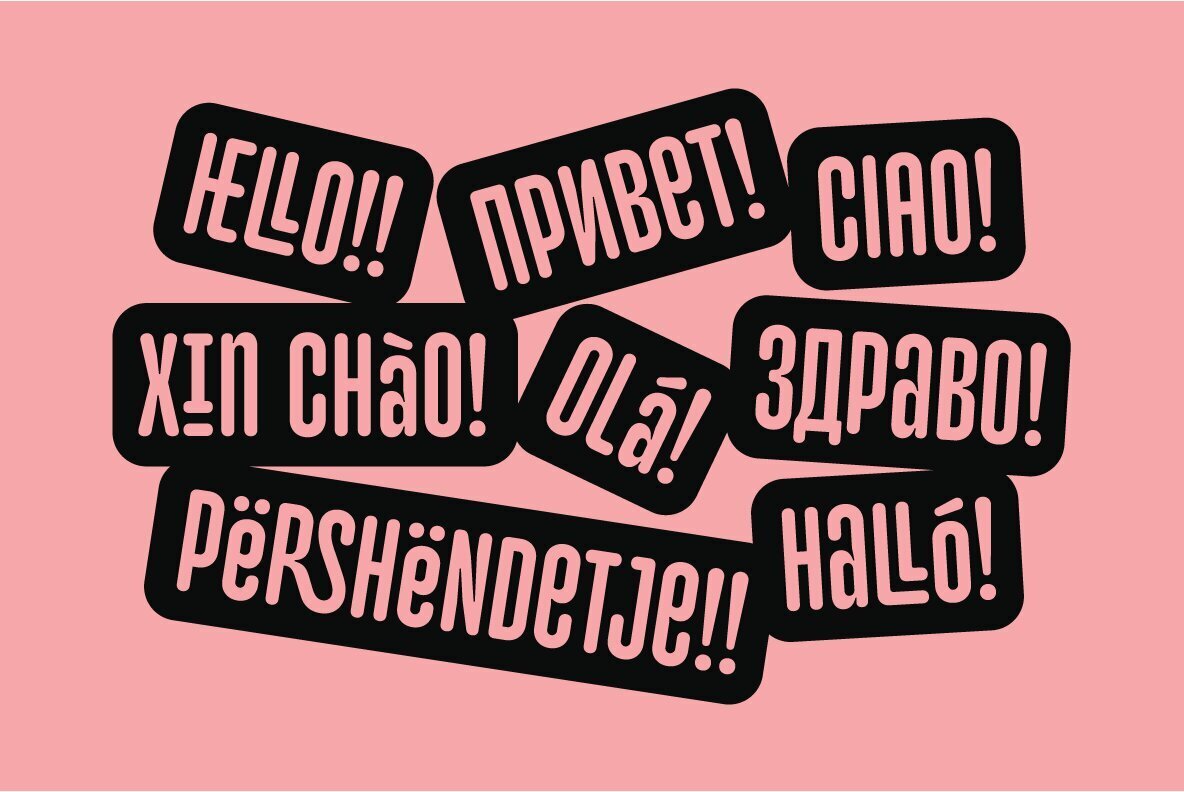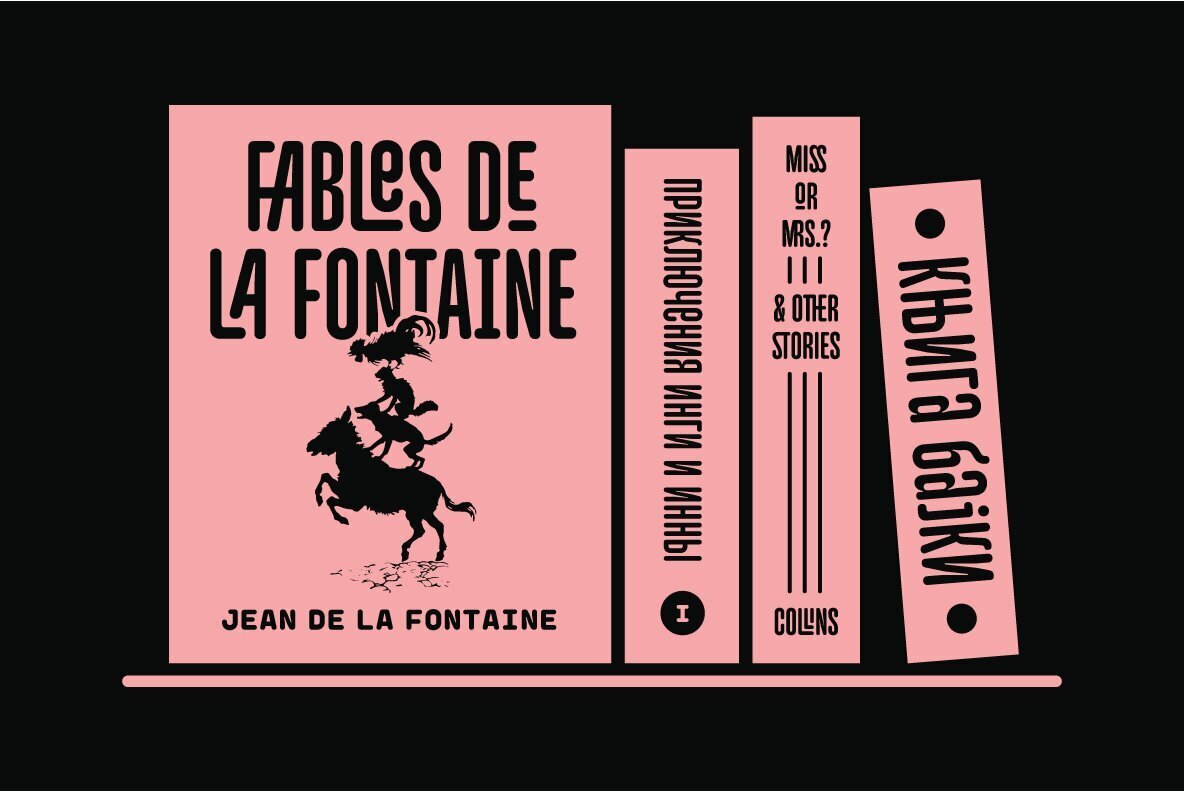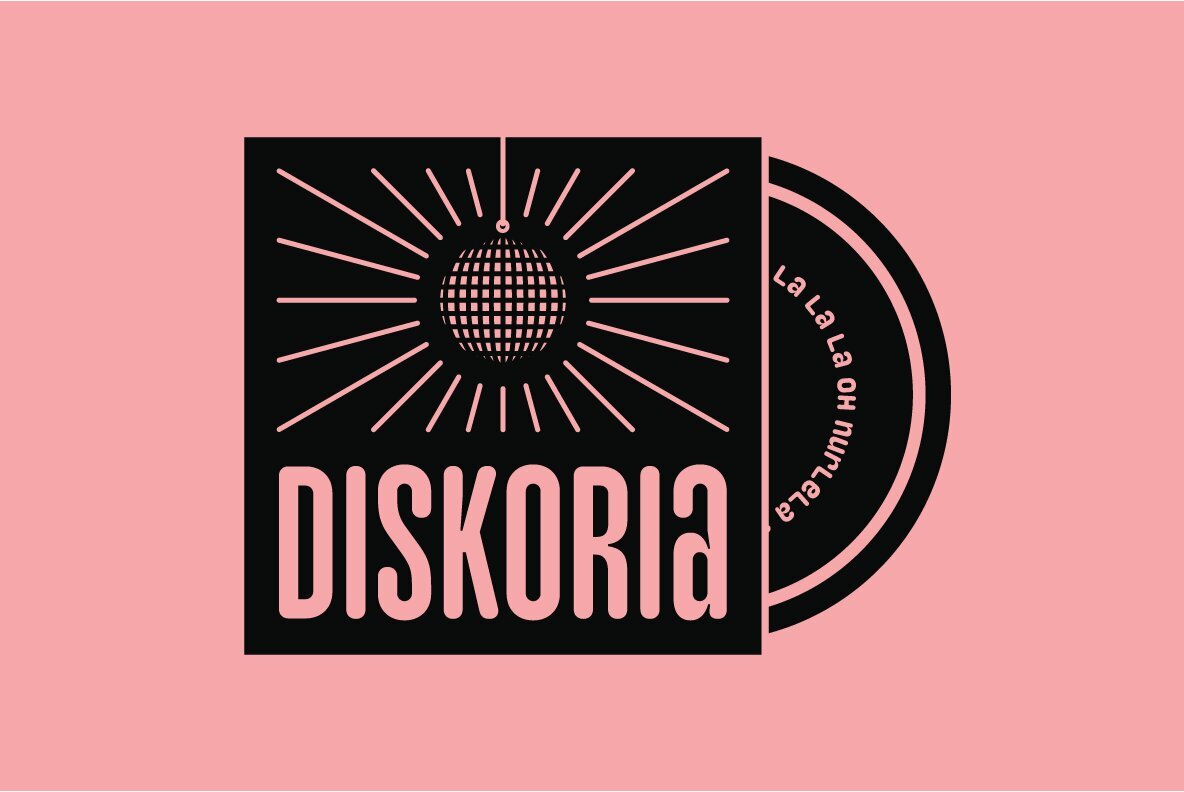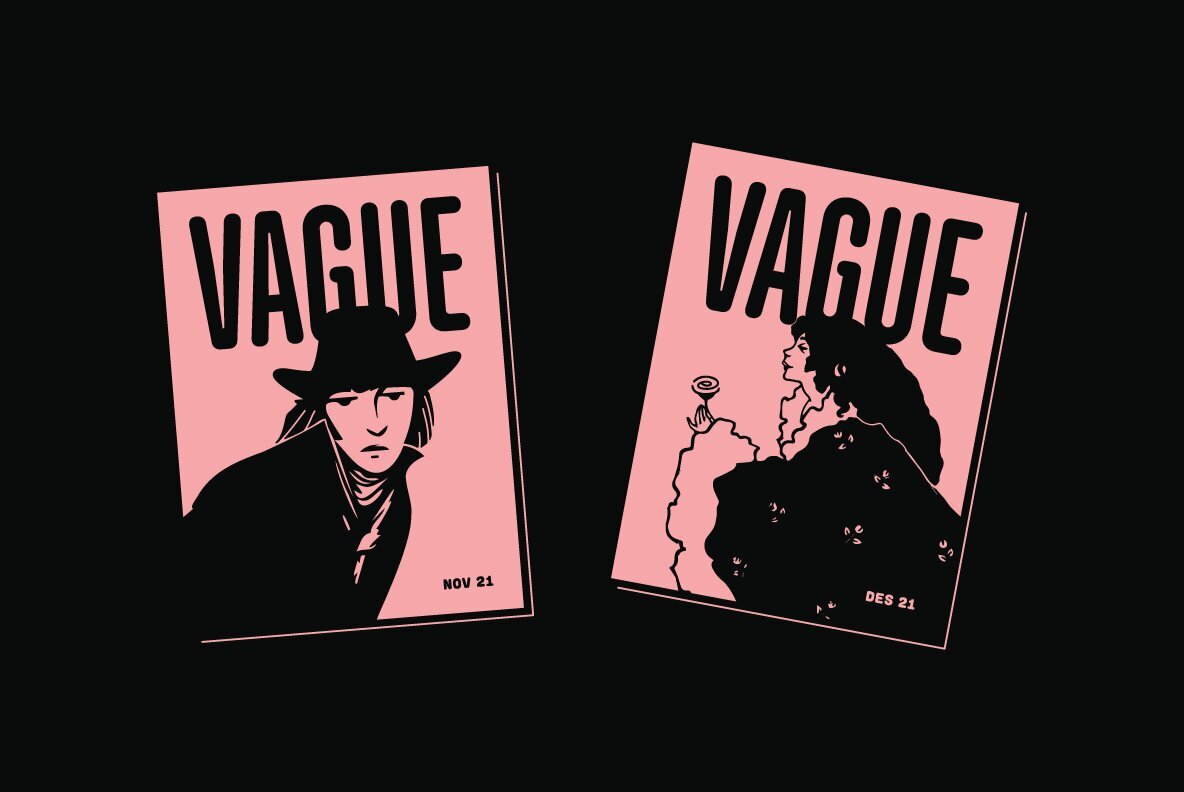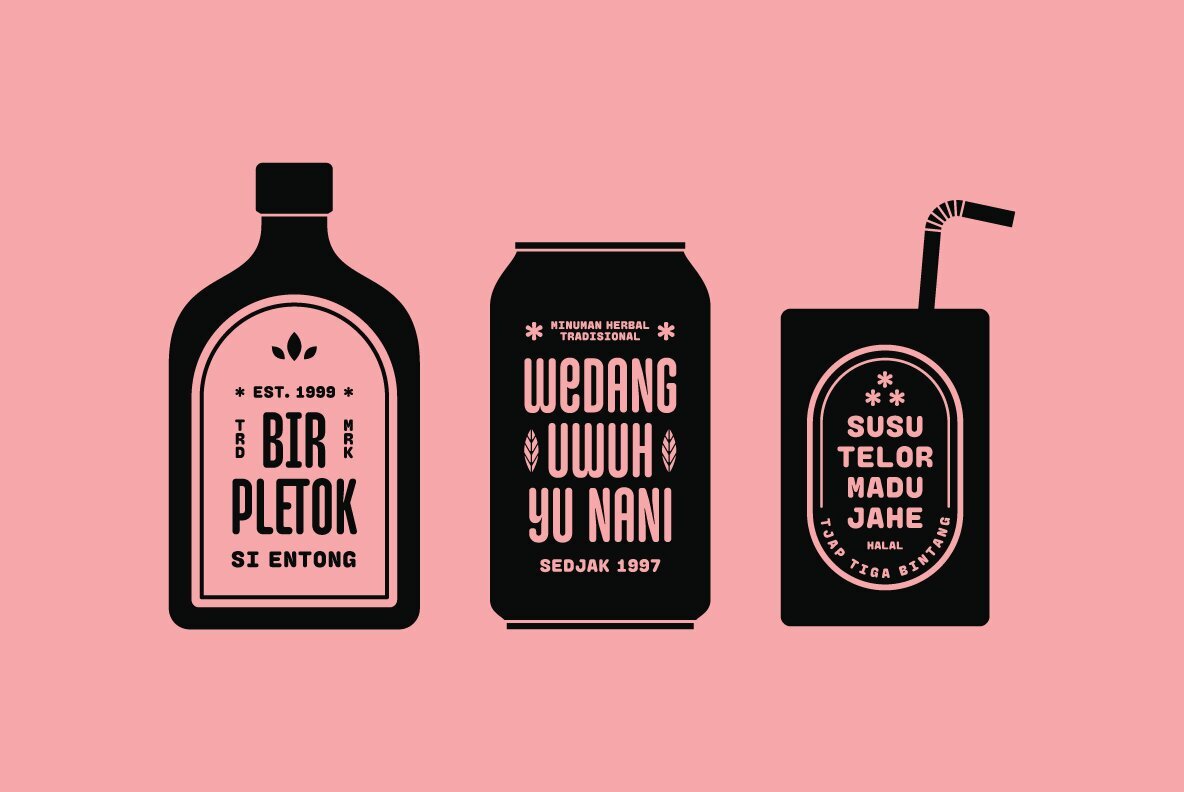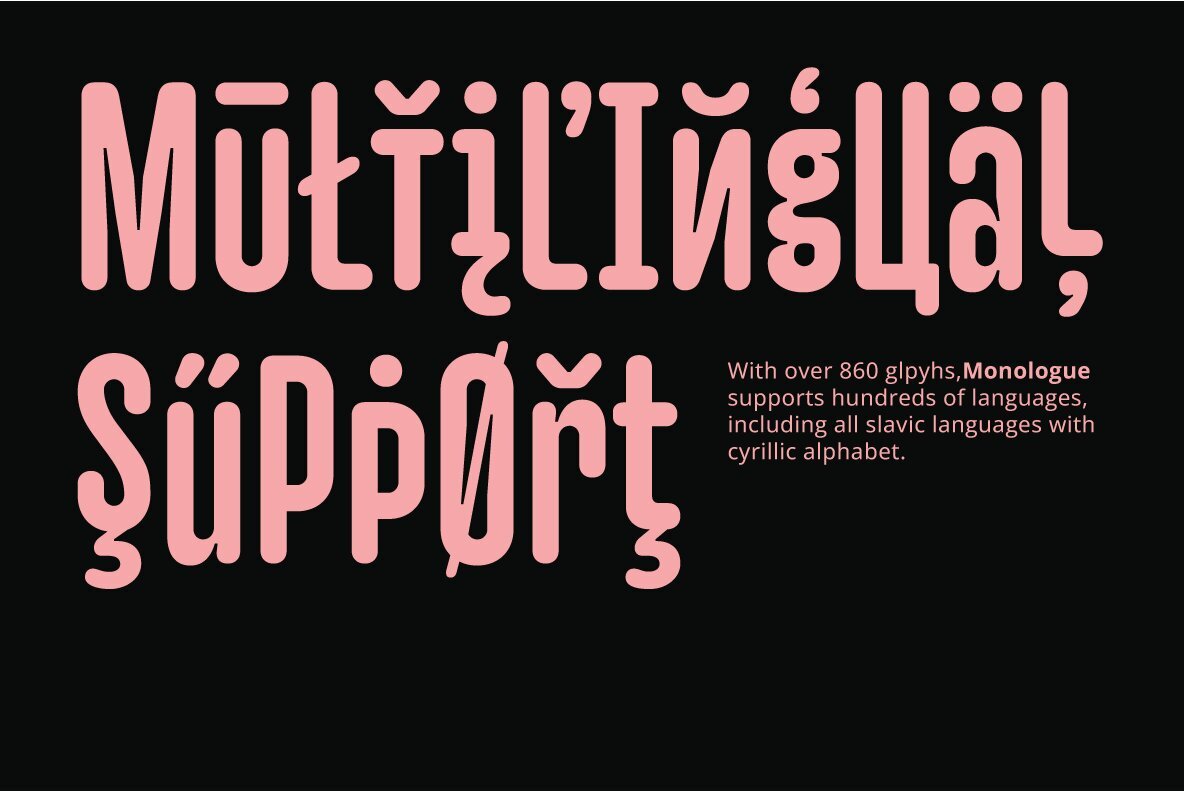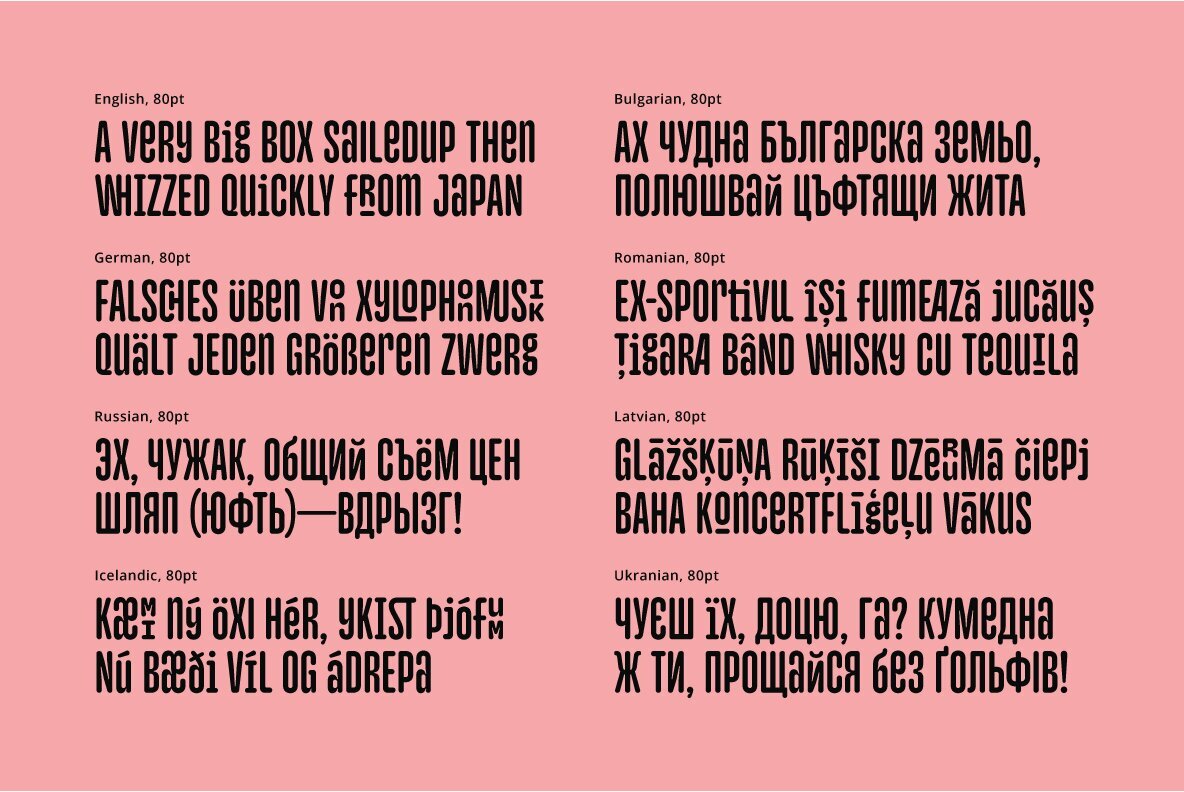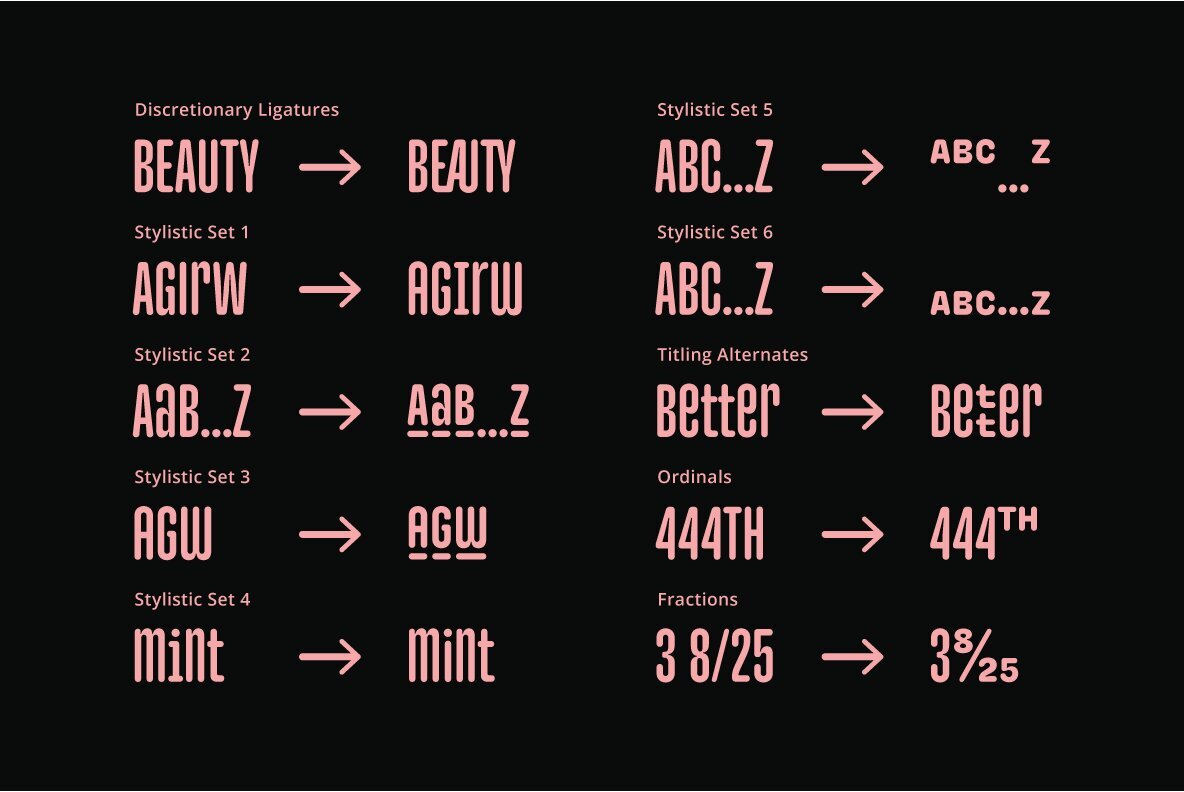
Monologue Rounded Font
Monologue Rounded Regular
A softer, more humane, and funnier version of Monologue. Monologue itself is a simple, condensed sans serif font with bold and complex personality. It was purposely crafted to be used in large point sizes, although it doesn't lose it's magic in small point sizes. With this rounded version, you can be even more expressive in your design projects. FEATURES: